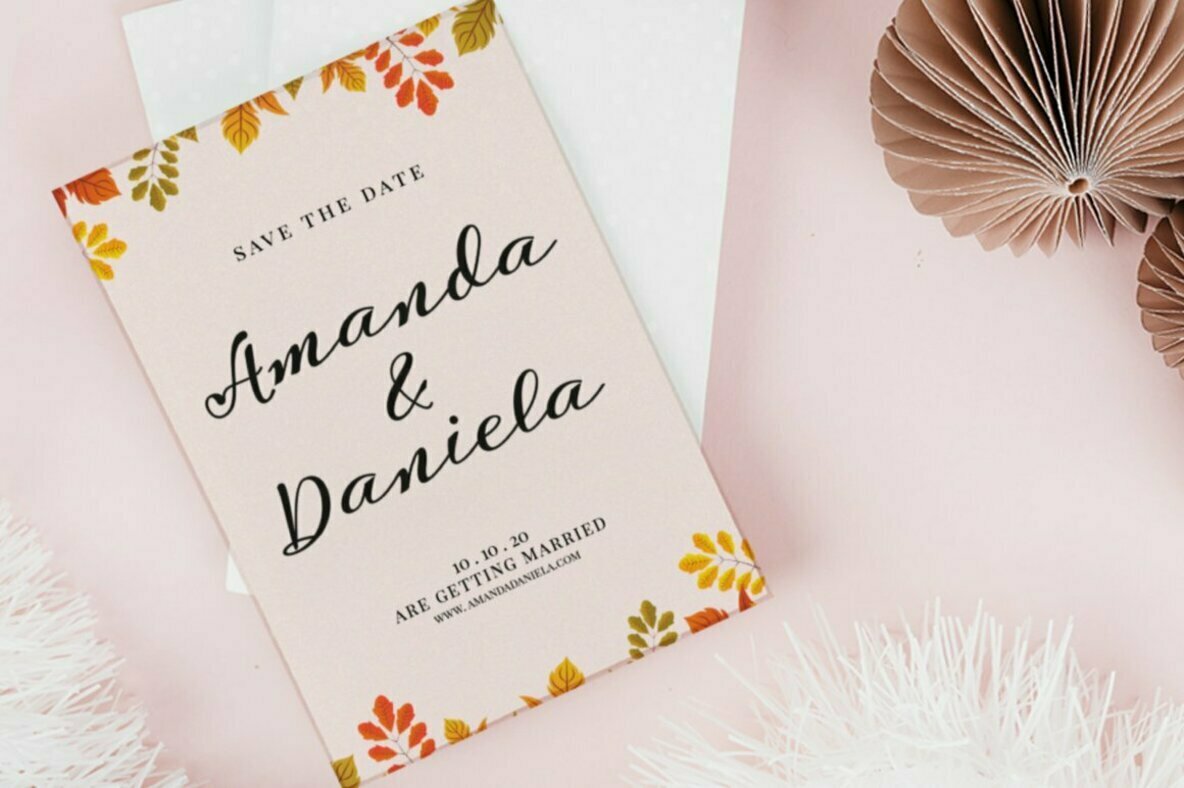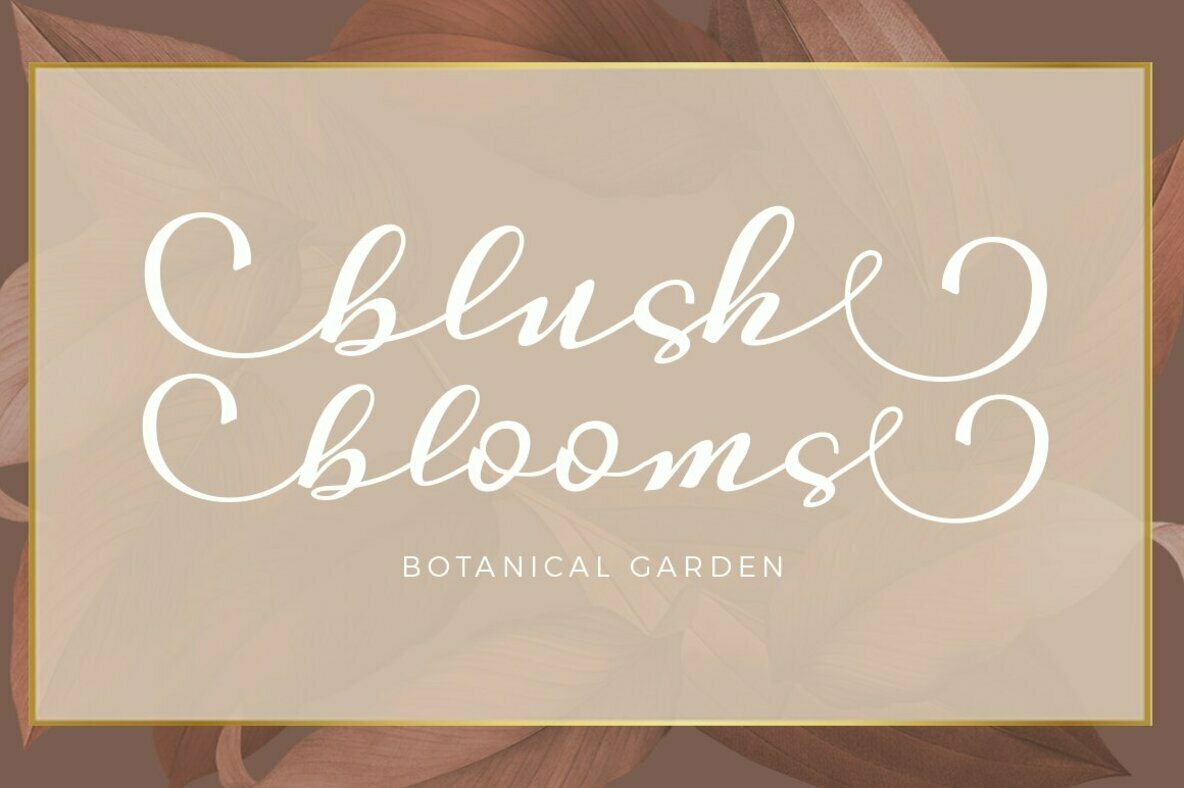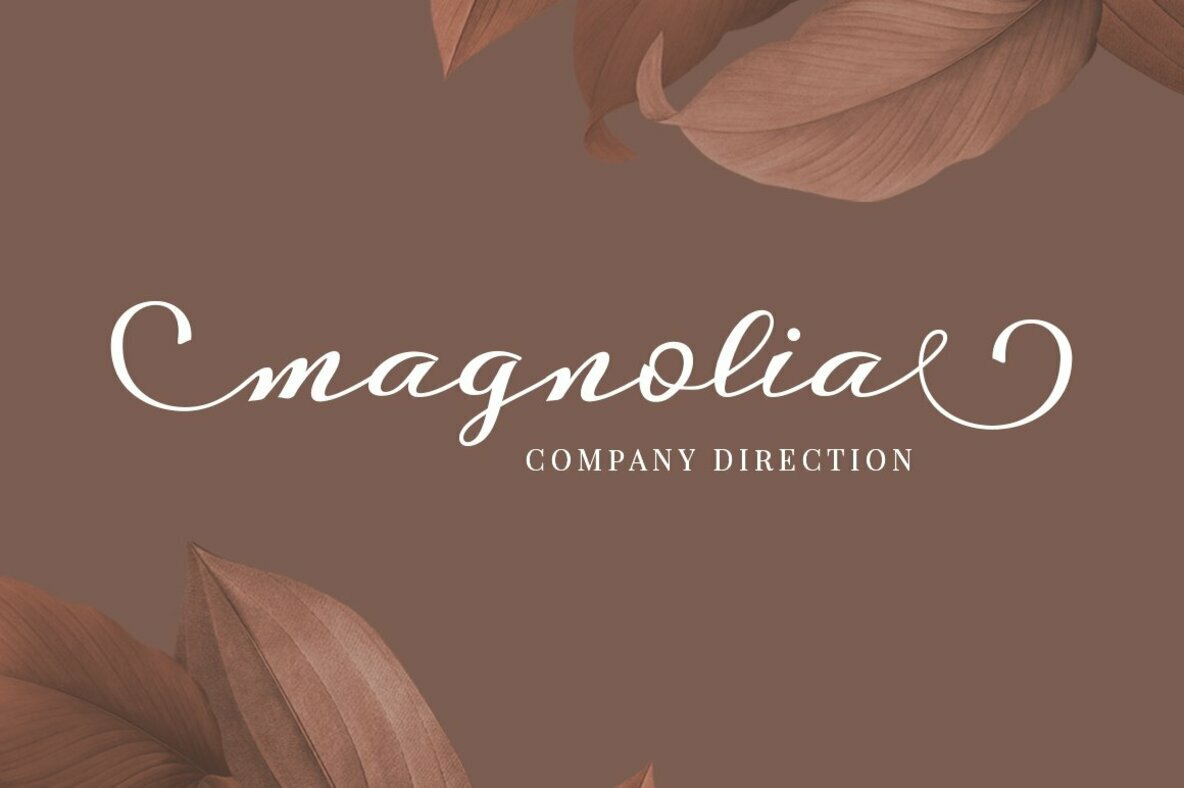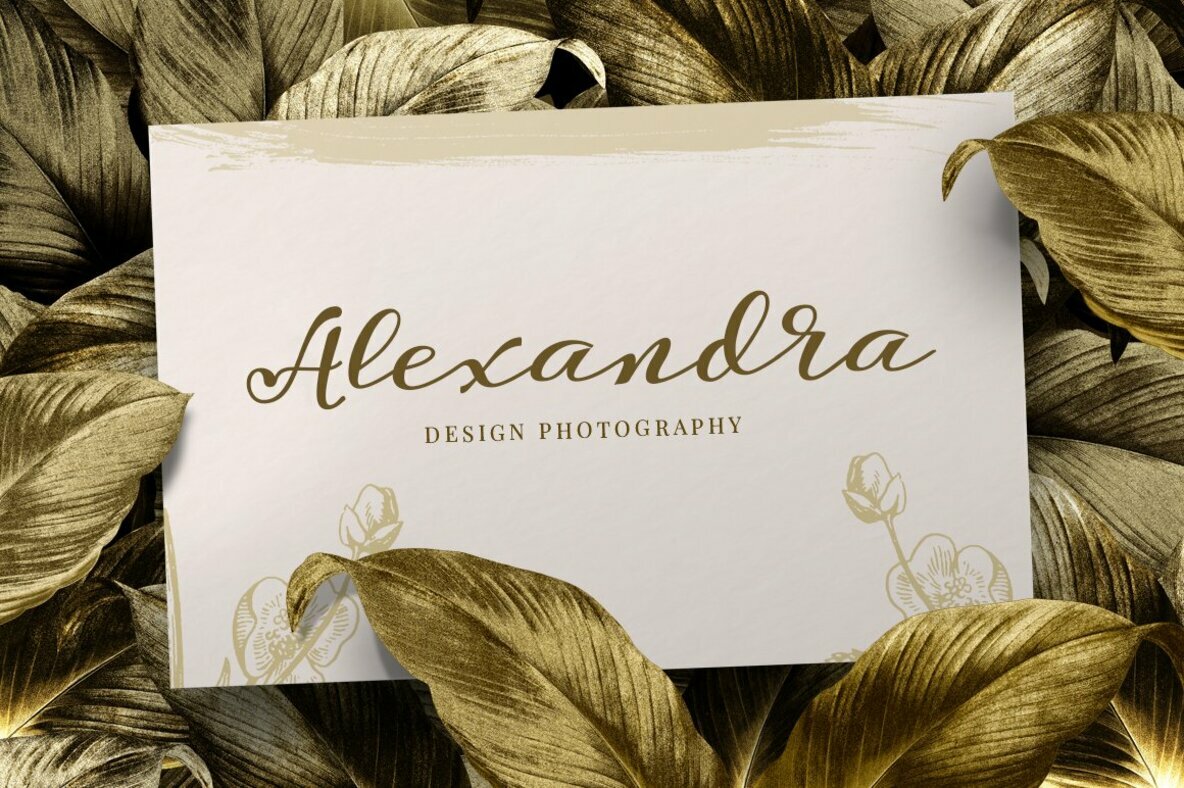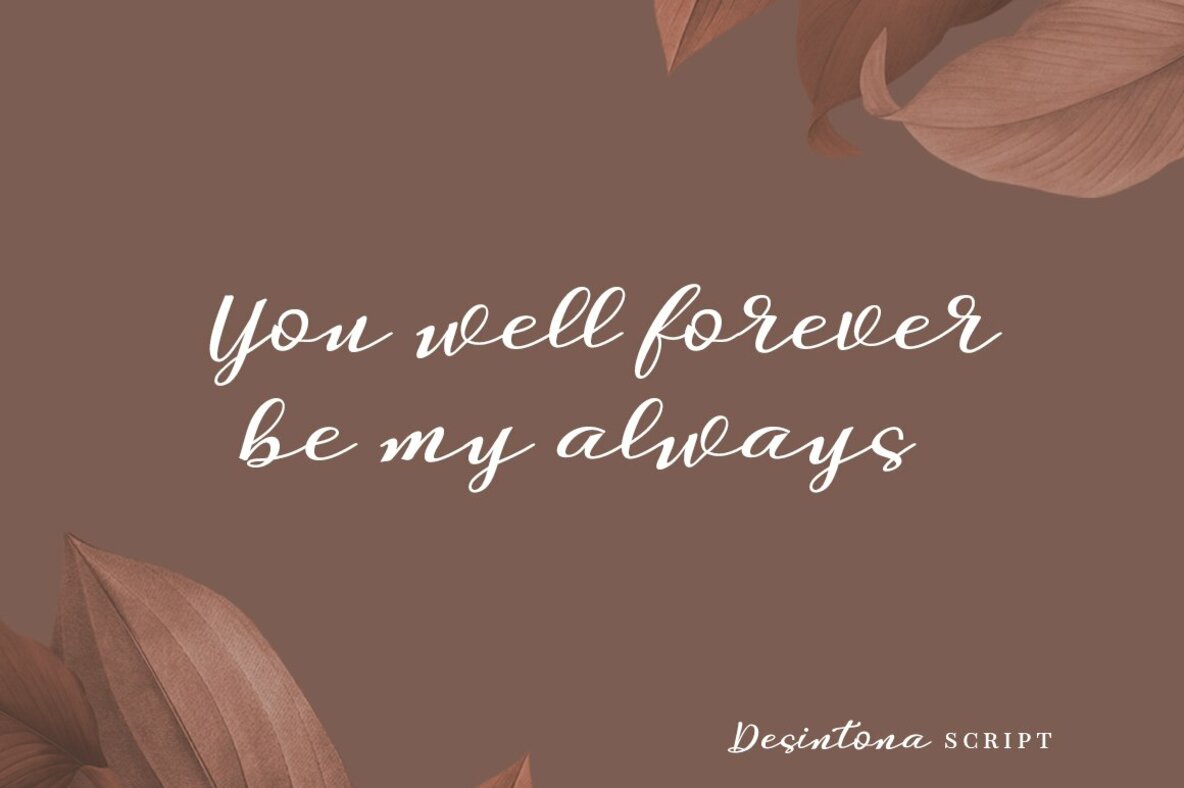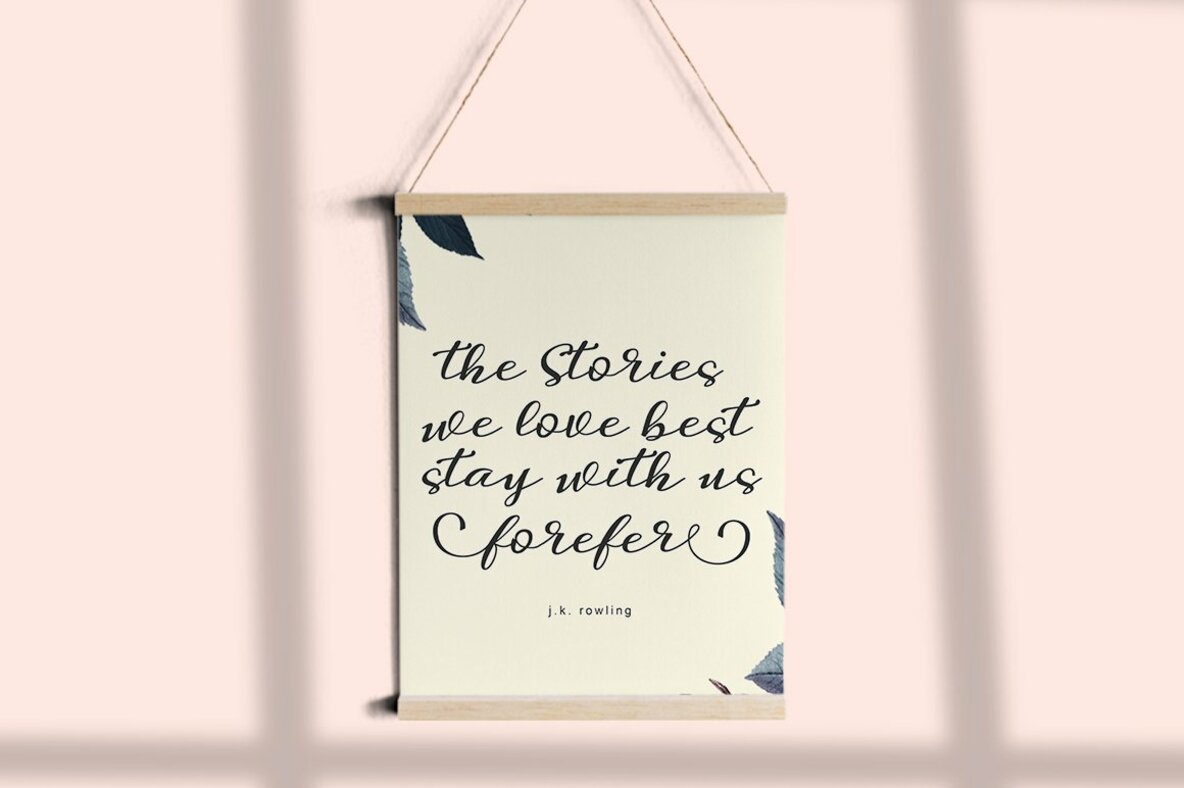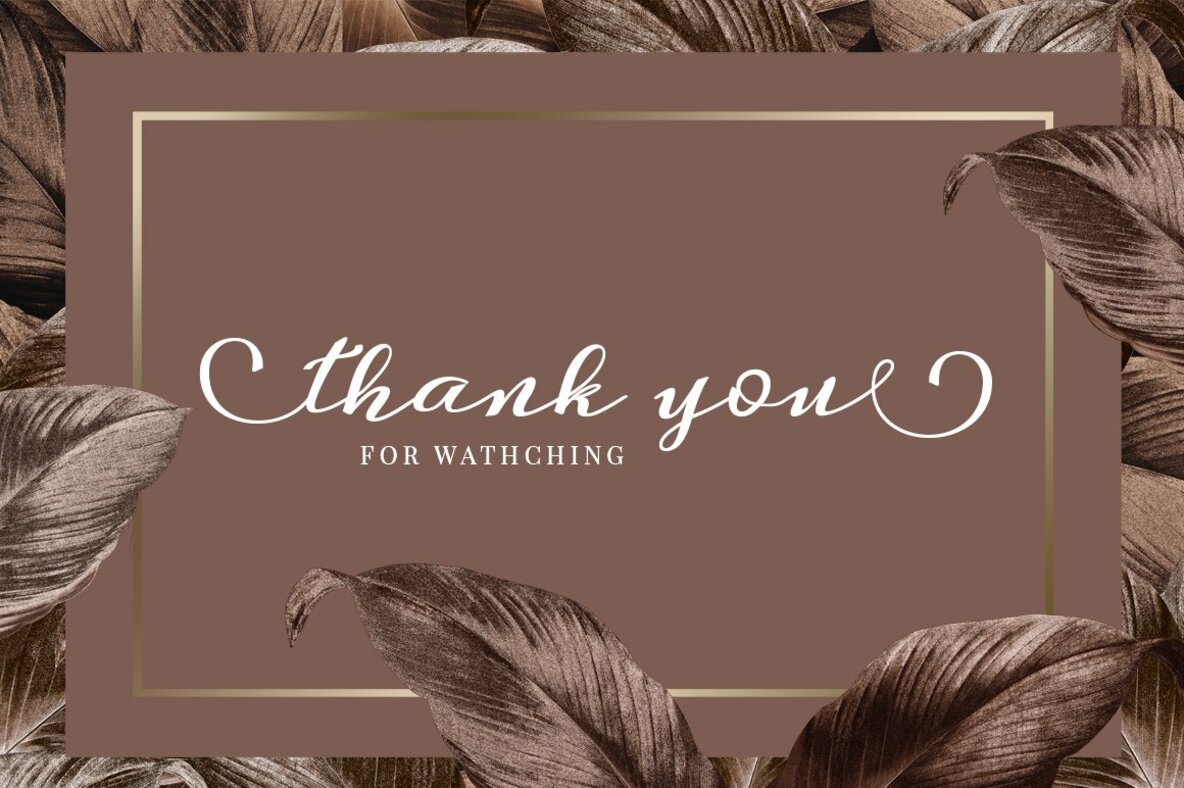
Desintona Script
Embrace the blend of contemporary calligraphy with a touch of vintage charm through the versatile Desintona Script. This font, with its dynamic baseline and elegant flair, brings a fabulous aesthetic to any project. Whether you're crafting headings, signatures, logos, or invitations, Desintona Script offers a sophisticated touch that meets diverse design requirements. Features:Desintona Script: Vintage Charm With Modern Elegance